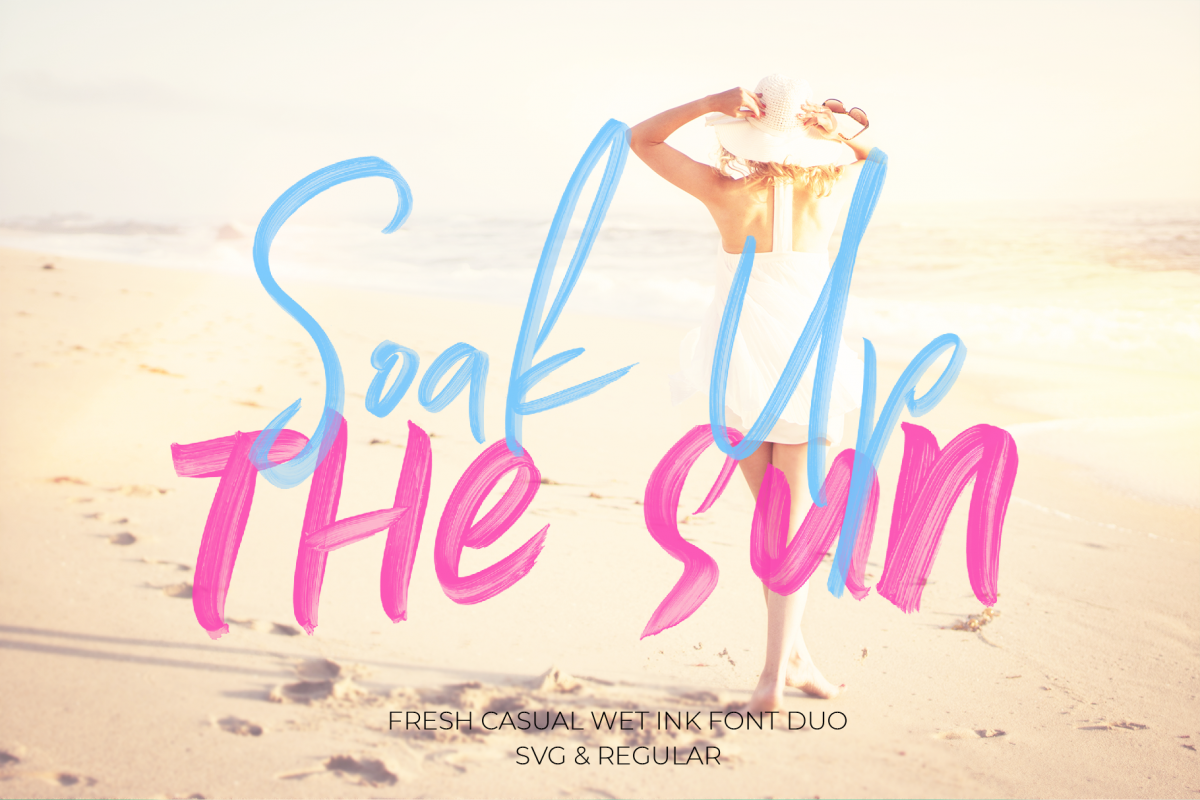
Soak Up The Sun Font Duo & SVG
Enjoy the sun, the sand and the sea!
Immerse yourself on the beach this summer with our new Soak Up The Sun Font collection.
Introducing a textured handwritten SVG Fonts with wet ink effects.
Feel the handmade love of this product. We created it manually, turning it into digital with high resolution.
This font duo is a combination of Signature and Bold styles.
It's great for your logo, hand-painted lettering, printed quotes, badge, insignia, packaging, headline, poster, t-shirt/apparel, greeting card, and wedding invitation, & etc.
1. Soak Up The Sun - SVG
Use this signature style version to create natural high-resolution brush strokes.
2. Soak Up The Sun Bold - SVG
Caps & Small-Caps handwritten versions with thick strokes with very detailed textures.
3. Soak Up The Sun Script
Conventional font signature style with original brush strokes thus giving the impression of a rough stroke.
4. Soak Up The Sun Bold
A handwritten Caps & Small-Caps with a thick stroke with a special texture.